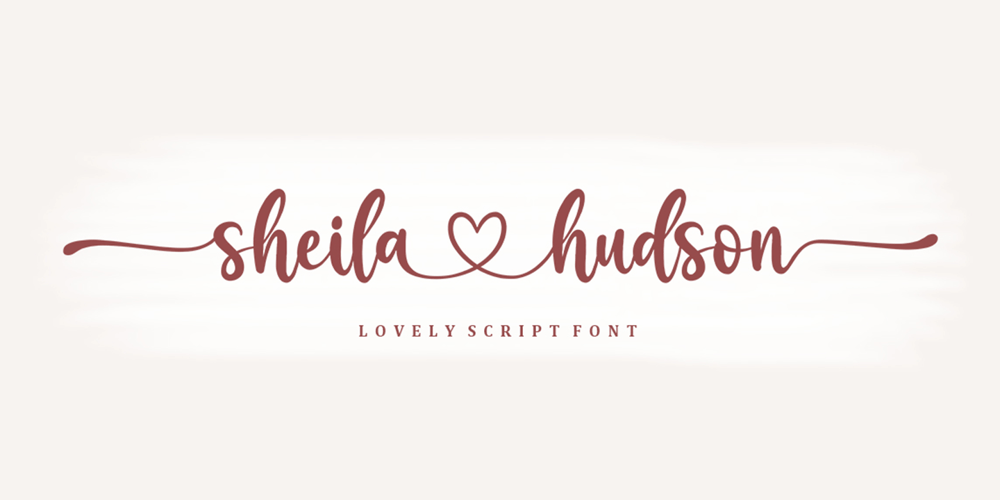
Sheila Hudson Font Family was designed by Faqihuddin Ilza and published by Crowntype Studio. Sheila Hudson contains 1 styles and family package options. Sheila Hudson is modern script font, where every single letter has been carefully crafted to make your text look beautiful. With a modern script style, this font will perfect for many different project such as: quotes, blog headers, posters, weddings, branding, logos, fashion, apparel, letters, invitations, stationery, and more. This font includes alternate glyphs and beautiful swirls.